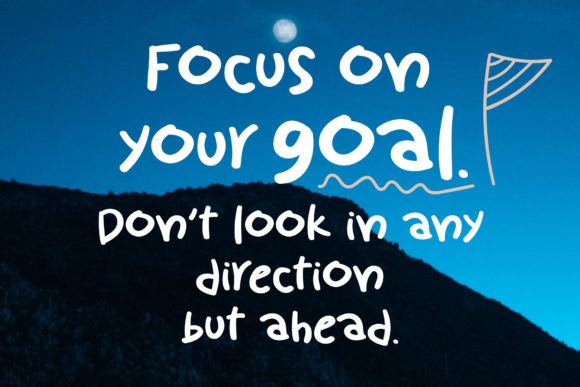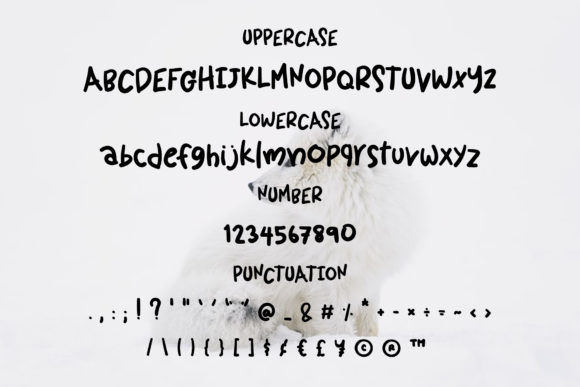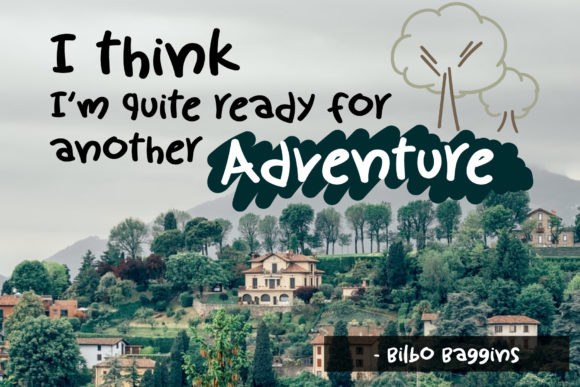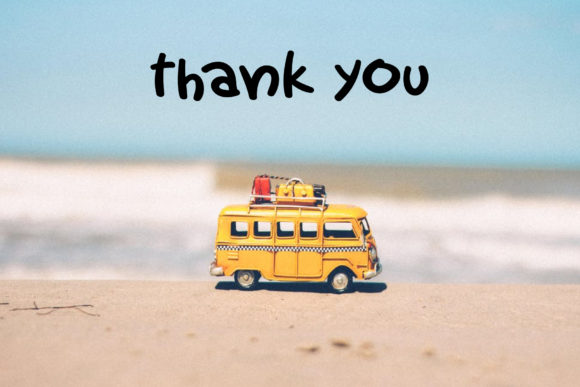
The Perfect Addition to Your Designs: Cartoon Toys Font
Remember the joy of creating with crayons and markers as a child? The world of imagination was limitless, and every creation felt like a masterpiece. As designers, we strive to recapture that sense of wonder and playfulness in our work. One way to do this is by incorporating the right fonts, and that’s where Cartoon Toys Font comes in.
This cute and fun display font is the perfect choice for any children’s activity or school project. Its chunky letters bring a sense of authenticity and playfulness to designs, making them come alive. Whether you’re working on a children’s book, a website for a toy company, or a school project, Cartoon Toys Font is a valuable addition to your design toolkit.
Key Features of Cartoon Toys Font
- Font Family: Cartoon Toys Font is a unique and playful font family that includes multiple styles and weights.
- Unique Characteristics: Cartoon Toys Font features hand-drawn illustrations and playful textures, making it perfect for children’s books, cartoons, and other creative projects.
- Character Count: Includes over 200 unique characters, including letters, numbers, and symbols.
Cartoon Toys Font Review
Overall, I think Cartoon Toys Font is a fun and playful font, perfect for projects that require a childlike charm. ✨ The rounded edges and bold lines give it a friendly and approachable feel.
- ✨ The font is highly customizable, allowing you to adjust the size, color, and spacing to fit your project’s needs.
- ✨ It’s great for creating attention-grabbing headlines or titles that stand out from the rest.
- ✨ The font is available in a variety of weights, from light to bold, giving you plenty of options to choose from.
However, there are some limitations to keep in mind:
- ⚠️ The font may not be suitable for projects that require a more professional or formal tone.
- ⚠️ Some users may find the font’s rounded edges and bold lines to be too childish or cartoonish.
Overall, I would recommend Cartoon Toys Font for projects that require a fun and playful tone, but may not be the best choice for more formal or professional projects.
The Cartoon Toys Font is perfect for:
- Toy packaging and branding.
- Children’s book illustrations and typography.
- Fun and playful social media graphics.
For the best results, pair the Cartoon Toys Font with bright, bold colors and playful illustrations. Experiment with different font sizes and styles to add visual interest and emphasis to your text.
Alternatives to Cartoon Toys Font
Comic Sans MS is a sans-serif font that is often used in informal and playful contexts. It is best suited for projects that require a lighthearted and humorous tone, such as children’s books, advertising, and entertainment materials. Compared to Cartoon Toys Font, Comic Sans MS has a more rounded and cursive feel, making it more suitable for text-heavy content.
Pacifico is a beautiful and elegant script font that is perfect for adding a touch of sophistication to your designs. It is ideal for use in titles, headings, and other decorative elements. Compared to Cartoon Toys Font, Pacifico has a more refined and luxurious feel, making it suitable for high-end projects and luxury brands.
Great Vibes is a modern and stylish script font that is great for adding a touch of whimsy to your designs. It is best suited for use in titles, headings, and other decorative elements. Compared to Cartoon Toys Font, Great Vibes has a more fluid and dynamic feel, making it suitable for projects that require a sense of energy and movement.
Q: What is the recommended font size for Cartoon Toys Font?
The recommended font size for Cartoon Toys Font is between 12pt and 24pt, depending on the design context. For headings, use a larger font size (18pt-24pt) for emphasis, and for body text, use a smaller font size (12pt-14pt) for readability.